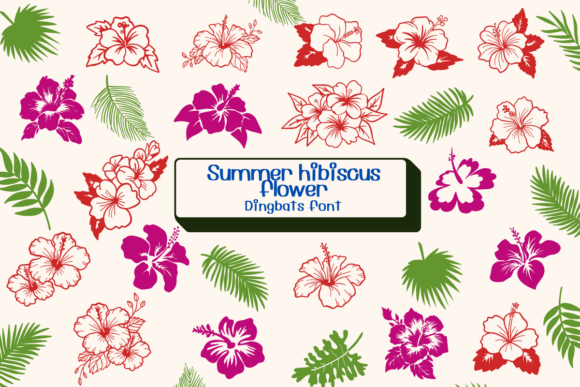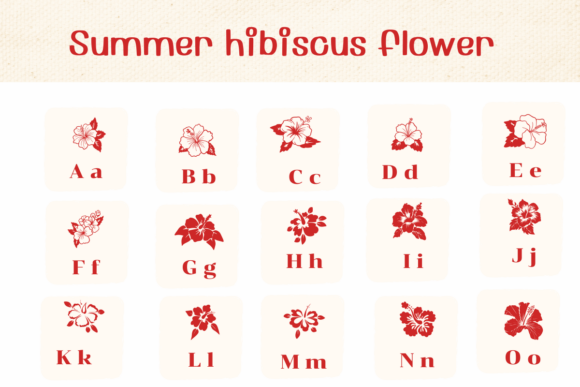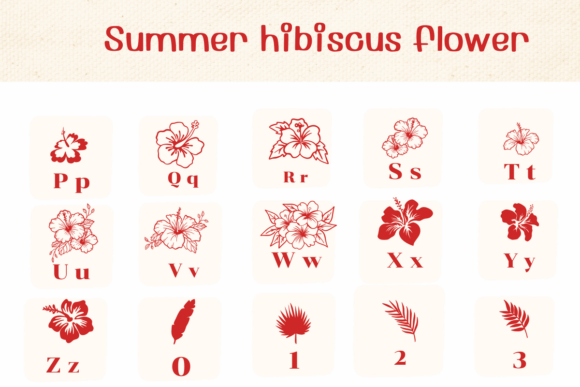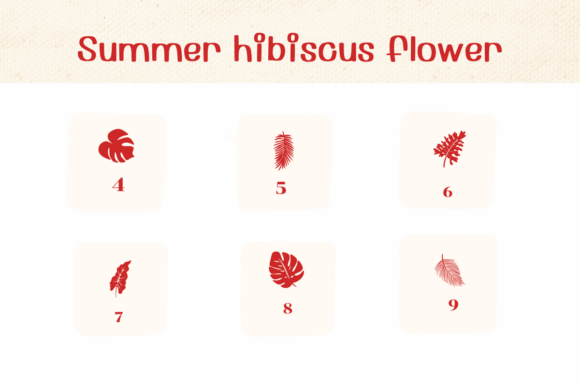
Summer Hibiscus Font
About the Summer Hibiscus Font
Crafted with precision, the Summer Hibiscus Font is ready to bring your ideas to life. Summer hibiscus is a dingbats font with a floral theme. This font can enhance your creative projects such as wedding invitations, DIY, crafts, decorations, logos, and many other creative ideas.
Summer Hibiscus Font Usage Examples
Summer Hibiscus Font Example